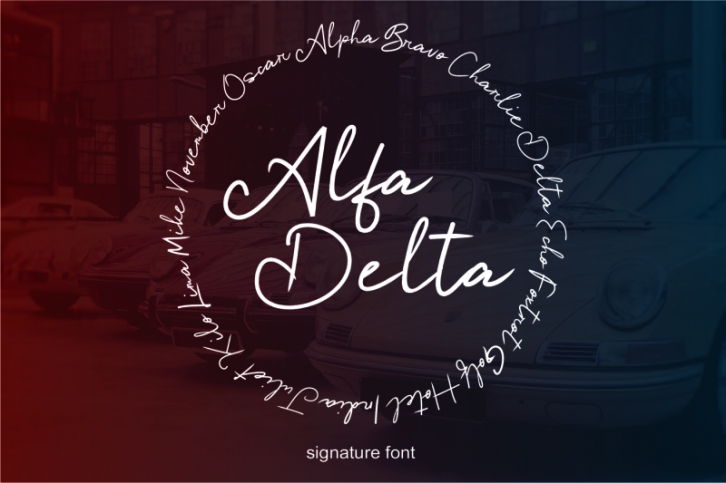
introduce Alfa Delta Stylish signature font. look classy and luxury. It is perfect for water mark, logo, printed quotes, badge, insignia, packaging, headline, poster, t-shirt/apparel, greeting card,weding invitation,etc. have a great day.